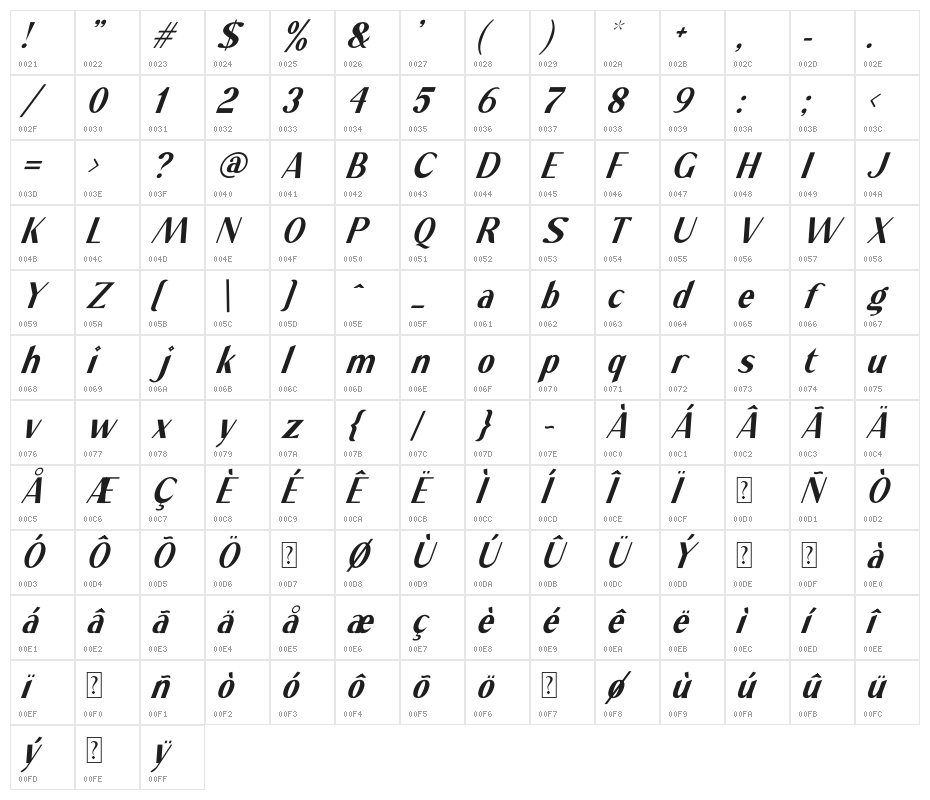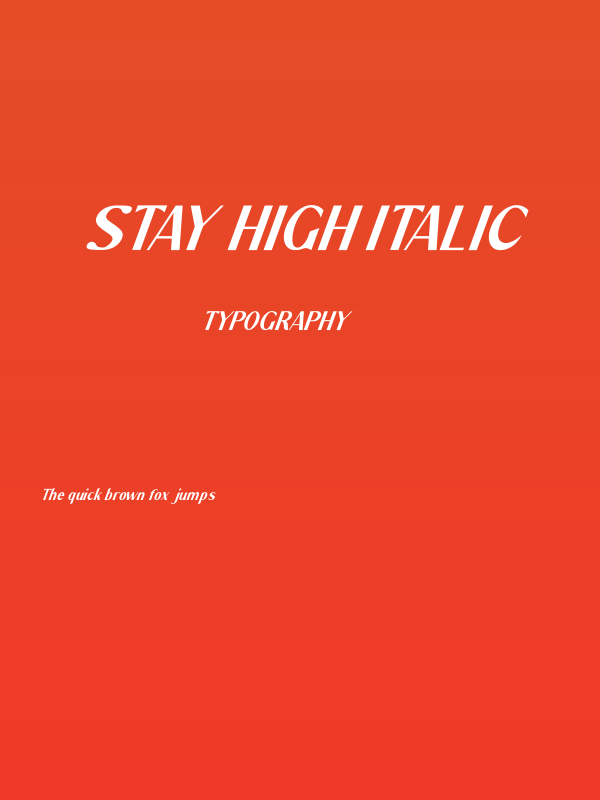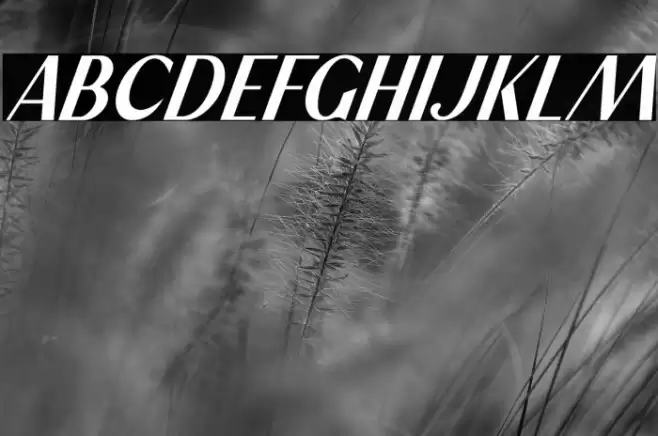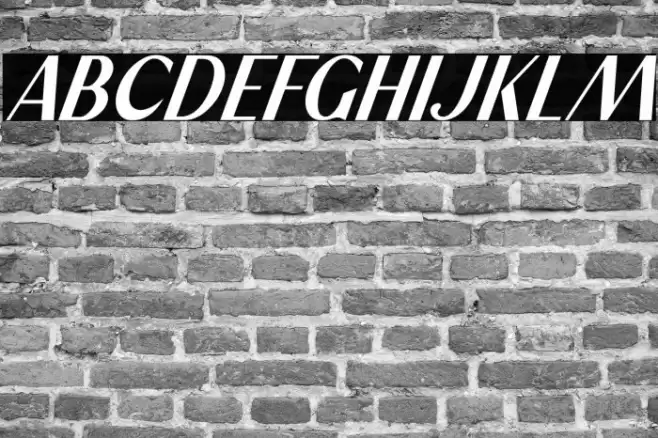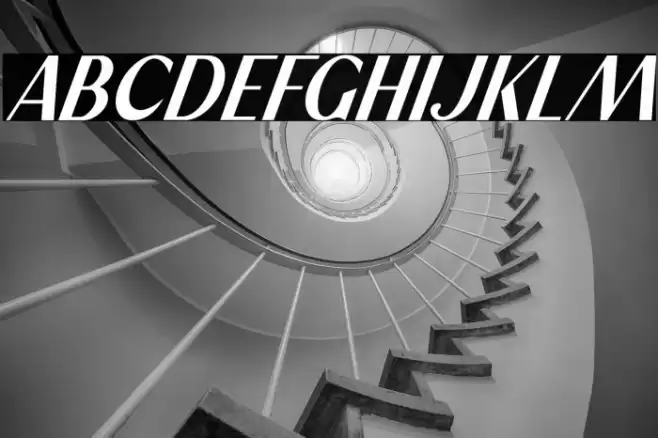
Stay High Italic Font
This font exhibits a dynamic and elegant italic style, characterized by its slanted and flowing letterforms. The strokes are bold and confident, with a noticeable contrast between thick and thin lines, adding to its expressive nature. The uppercase letters are tall and commanding, while the lowercase letters maintain a consistent rhythm, enhancing readability. The numerals are bold and clear, ensuring they stand out in any context. Special characters are designed with the same attention to detail, ensuring a cohesive look across all glyphs. The overall design is modern yet timeless, making it suitable for a variety of applications.
| Use Case | Headlines, Logos, Editorial Design |
| Proposed Projects | Ideal for branding, editorial design, advertising, and any project requiring a bold, elegant touch. |